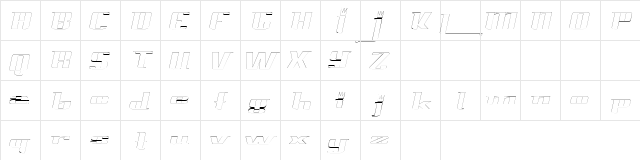
PrinceAlbertOutline Italic
Design Context for PrinceAlbertOutline Typeface
PrinceAlbertOutline is built around its visual character rather than neutral utility — its distinctive forms are designed to make an impression at display sizes. The dynamic lean of this cut emphasises speed and emphasis in any layout.
Font Pairing: Pair with a clean neutral sans-serif for body copy to let PrinceAlbertOutline's character lead without overwhelming the composition.
Pro Tip: Use PrinceAlbertOutline exclusively at display sizes — it was designed to be seen, not read at length. Let a neutral companion handle body copy.